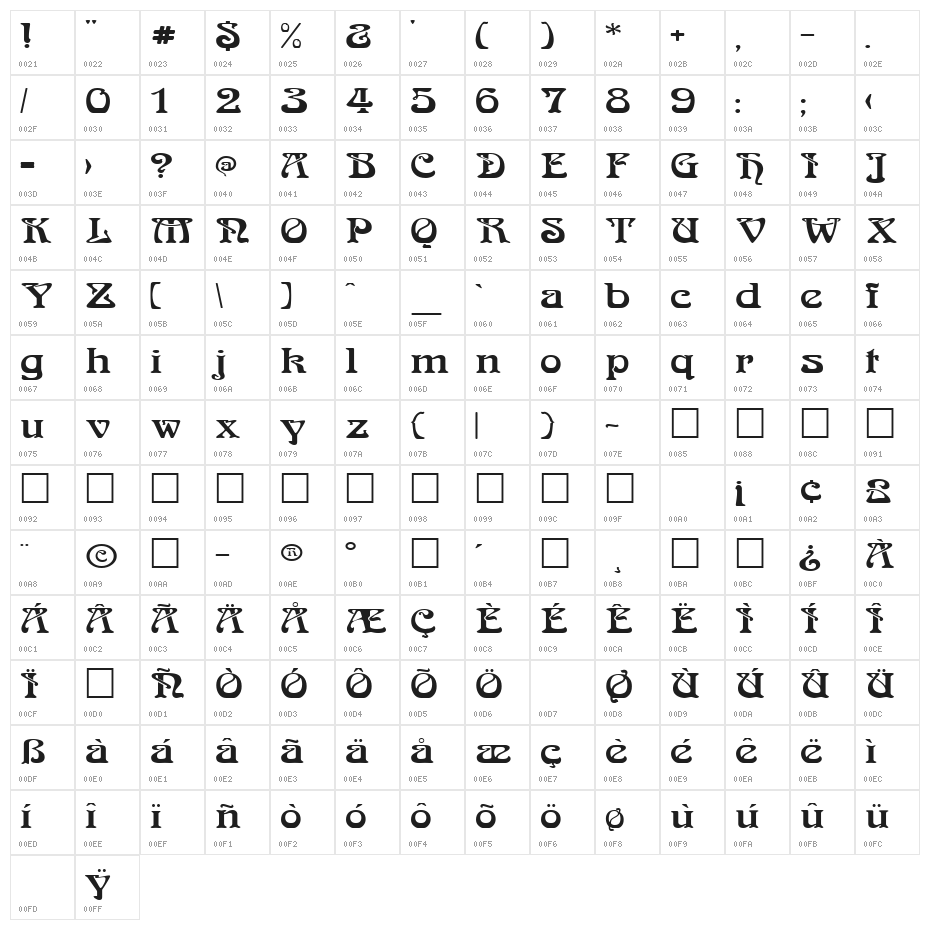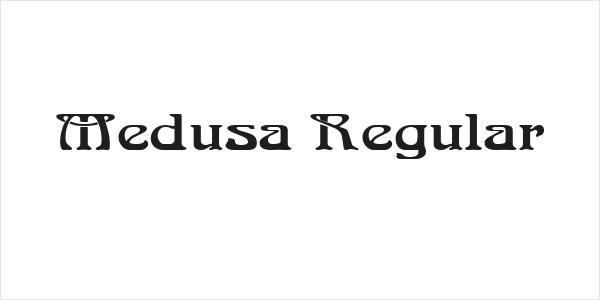
Medusa Regular Font
Medusa Regular Description
This font features a unique and bold design with a decorative flair. The uppercase letters are characterized by intricate curves and sharp edges, giving them a dramatic and eye-catching appearance. The lowercase letters maintain a consistent style, with rounded forms and subtle embellishments that add to the overall aesthetic. The numbers and special characters follow the same ornate style, making them ideal for creating striking visual compositions. The font's distinctiveness makes it suitable for projects that require a touch of elegance and creativity.